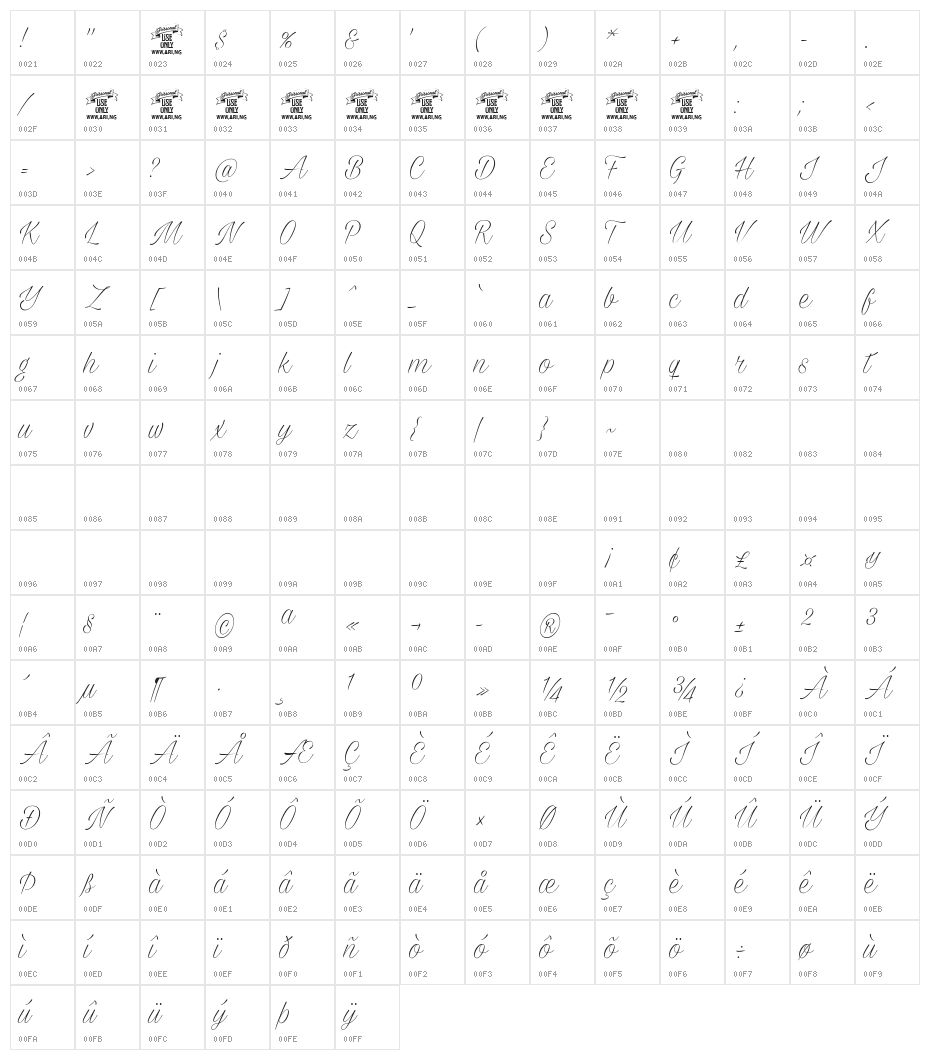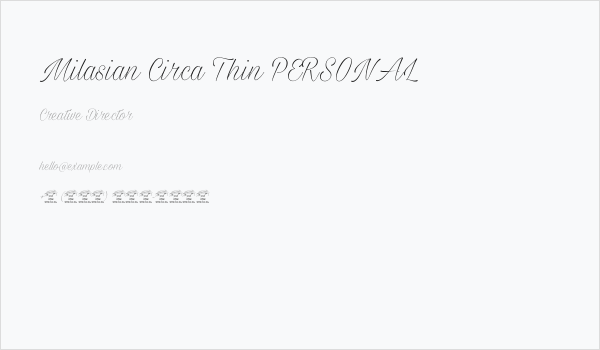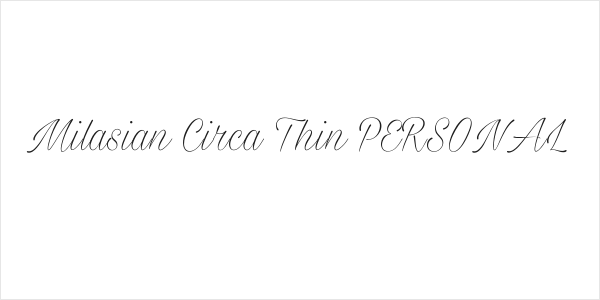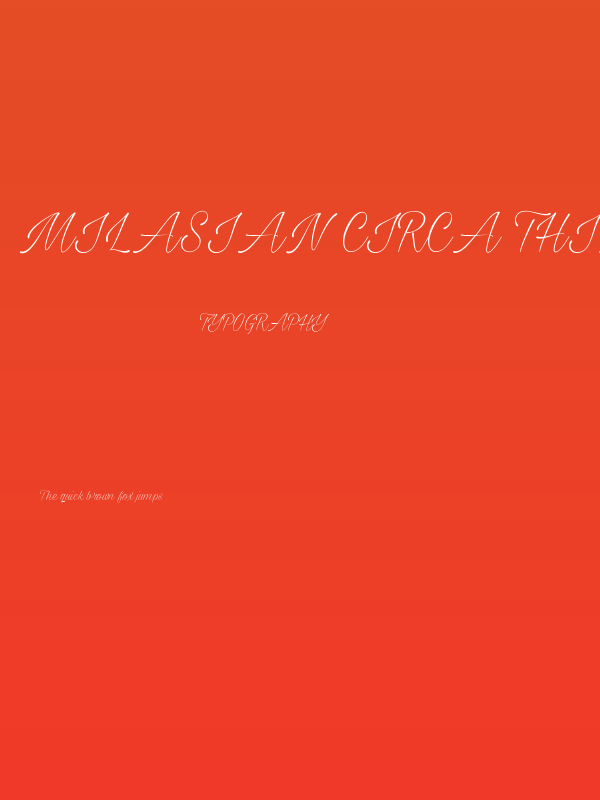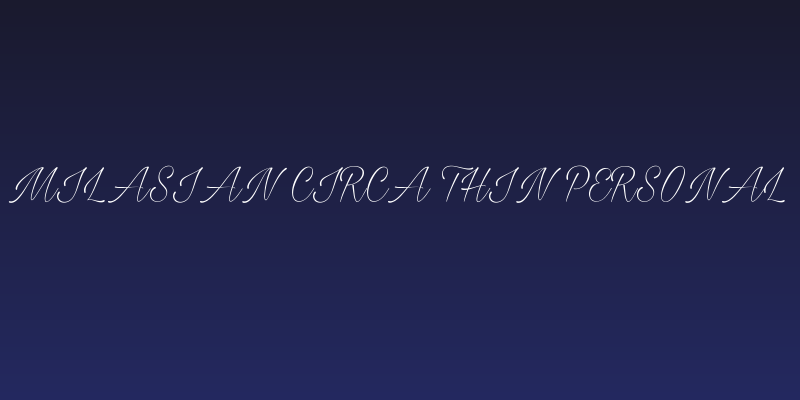
Milasian Circa Thin PERSONAL Font
Milasian Circa Thin PERSONAL Description
This elegant script font features a delicate and flowing design, characterized by its thin strokes and graceful curves. The uppercase letters exhibit a sophisticated flair with extended ascenders and descenders, while the lowercase letters maintain a consistent fluidity. The numerals and special characters complement the alphabet with similar stylistic elements, enhancing the overall cohesive appearance. The font's refined aesthetic is perfect for projects requiring a touch of elegance and sophistication.
| Proposed Projects | Ideal for wedding invitations, elegant branding, personal stationery, and sophisticated logo designs. |